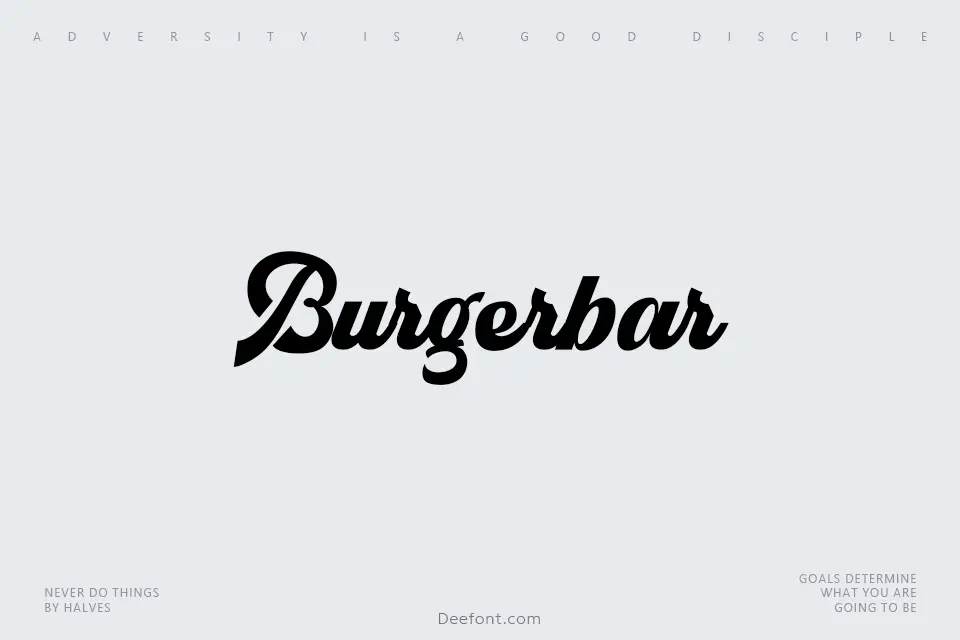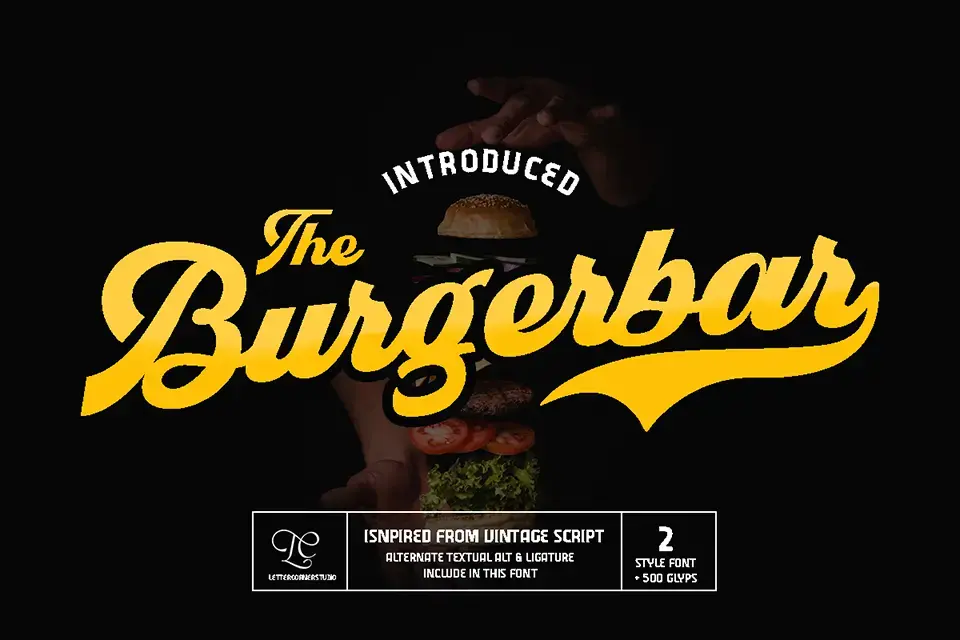
Burgerbar Font
Burgerbar is an exquisite old-school script font that combines flowing letterforms with authentic vintage flair. Featuring smooth strokes and decorative detailing, this display typeface excels in creating nostalgic, high-impact designs for retro-themed posters, event promotions, vintage branding projects, and bold headlines. Perfect for designers seeking to evoke timeless elegance and capture authentic 1950s-inspired aesthetics in logos, packaging, and promotional materials.